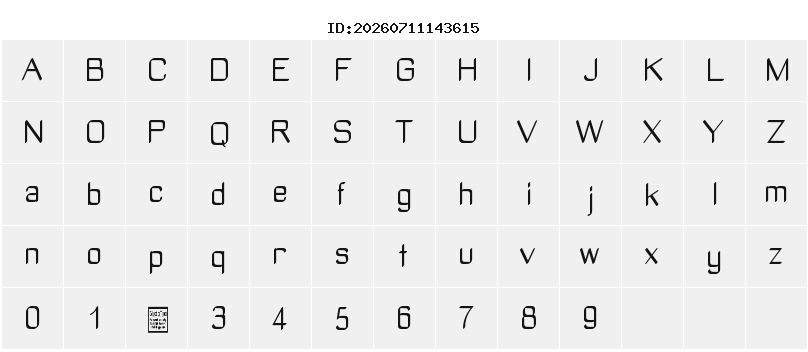
Manyeto Preview
• Font Name: Manyeto
• Full Font Name: Manyeto
• Version: Version 1.00 May 15, 2014, initial release
• Designer: Mehmet Abaci
• Manufacturer: StudioTypo
About Manyeto.otf
Manyeto.otf is a modern, elegant sans-serif font designed for ultimate readability and visual harmony. Perfect for branding, headlines, web design, and print materials.